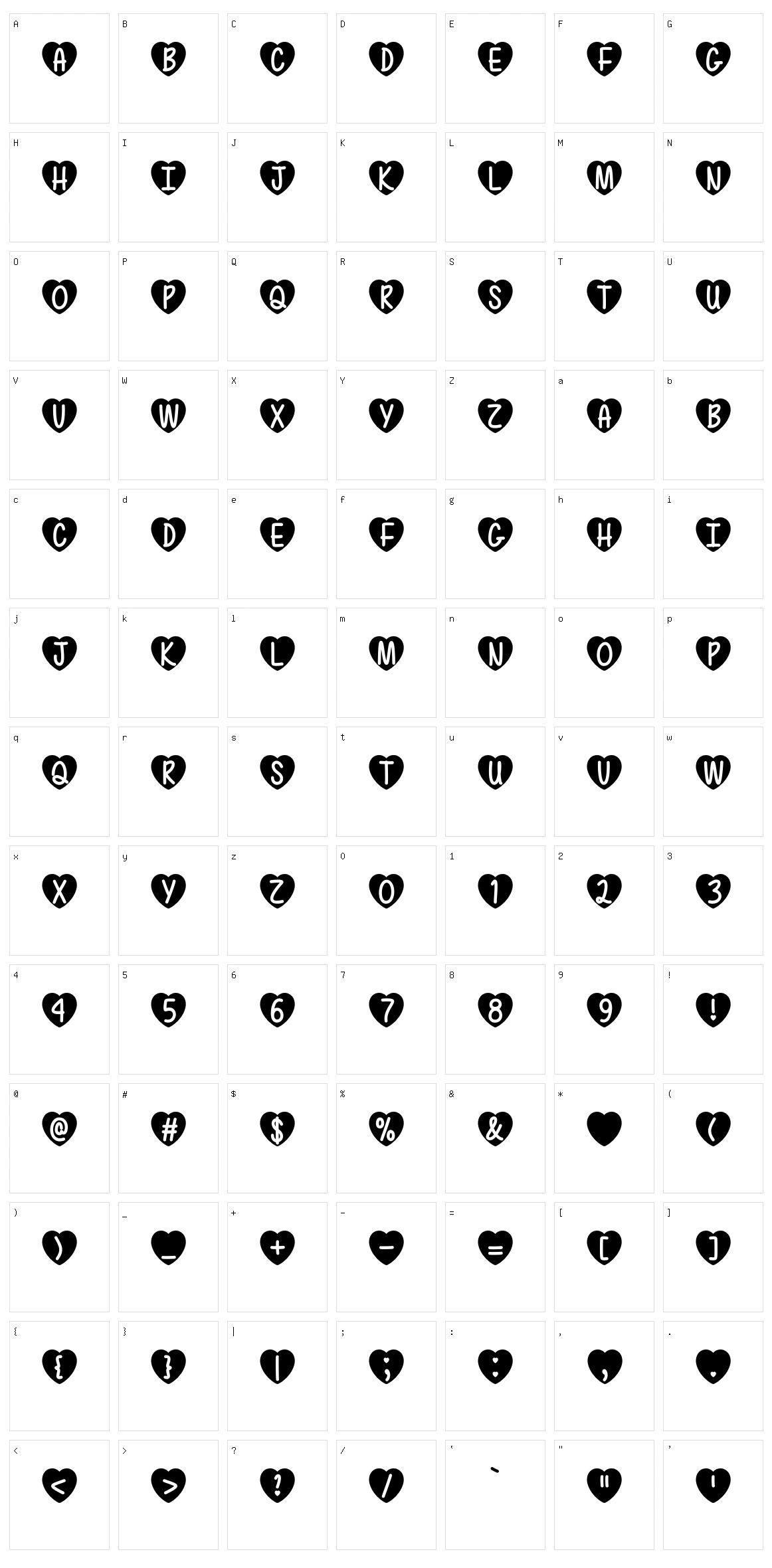
The free font Mf Love Is Awesome is carefully designed by Misti's Fonts, showcasing a thoughtful balance of creativity and usability and falls under the Valentine font style. When you download the ZIP file, it contains only 100.6 KB of font files, making it lightweight and quick to download. Please review the license details below to understand permitted usage and distribution rights. If license information is not available, we recommend using this font for personal projects only or contacting the author directly for commercial usage permissions.